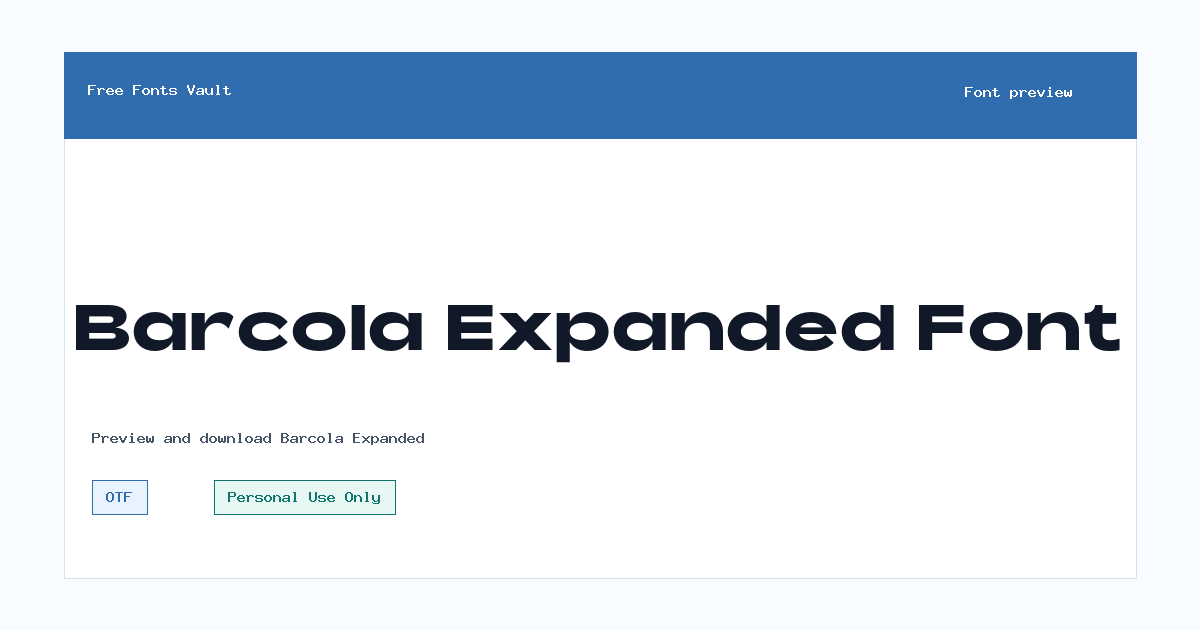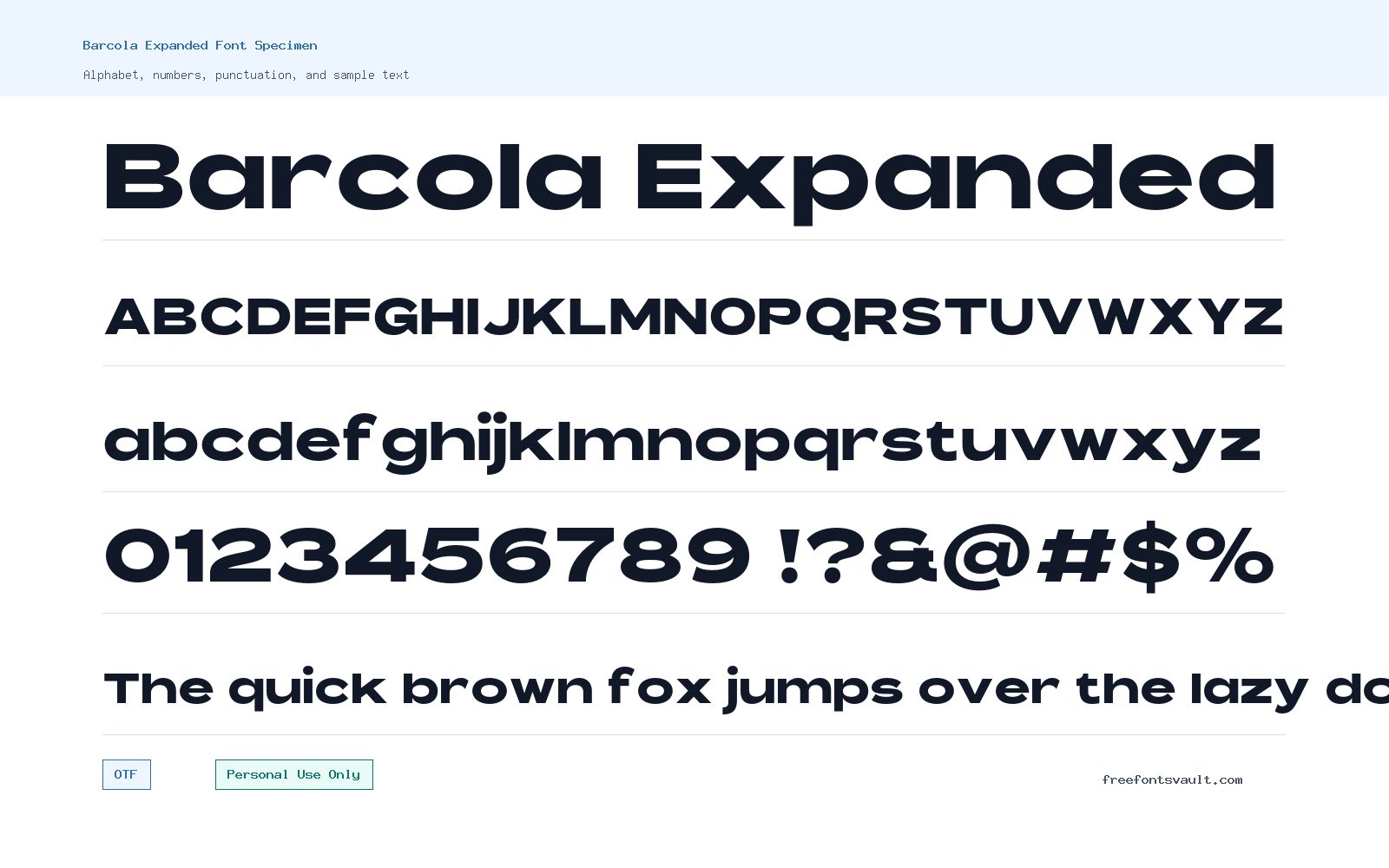
Barcola Expanded
Barcola Expanded is a bold expanded sans serif font with a wide, confident shape made for display work. It is best suited to short text where the lettering can take up space, such as titles, poster headers, branding drafts, and visual mockups.
About Barcola Expanded
Barcola Expanded uses a broad sans serif structure, giving words a stretched horizontal presence without relying on decorative details. The available font file is an OTF style with a bold weight, so it is not intended for quiet body text or dense paragraphs. Its main strength is impact: large words, compact phrases, and headline settings where width and weight help the text become part of the layout. Because the letters are expanded, even a simple word can feel more graphic on a poster, album-style cover, sports layout, streetwear mockup, or social media design.
Use Barcola Expanded when you want a title to feel solid and spacious. It can work well for logo concepts, product mockups, YouTube thumbnails, event posters, web hero text, and editorial display type. For logo work, treat it as a starting point rather than a finished identity: test the spacing, check how the wordmark reads at small sizes, and make sure the license fits the final use. For posters and web mockups, give the font enough room around the text so the wide letterforms do not crowd the design. It will usually look stronger in short uppercase or title-style phrases than in long sentences.
- Bold expanded sans serif styling with a wide display-focused shape
- Works best in short text settings where width, weight, and spacing can be part of the design
- Clean sans serif construction that can pair with simpler text fonts for contrast
- Poster headlines and event graphics
- Logo concepts and wordmark drafts
- Website hero sections and landing page mockups
- Social media graphics, banners, and thumbnails
- Packaging concepts, apparel mockups, and display typography
- Short editorial titles or cover-style layouts
What kind of font is Barcola Expanded?
Barcola Expanded is a bold expanded sans serif display font. Its wide letterforms make it better for headlines, logos, posters, and short design text than for long reading.
Is Barcola Expanded good for body text?
It is not the best choice for body text. The bold expanded style is designed for display use, so it works better for short headings, banners, and visual emphasis.
What fonts pair well with Barcola Expanded?
Pair it with a neutral sans serif for paragraphs, captions, and interface text. A simpler companion font will keep layouts readable while letting Barcola Expanded handle the main headline.